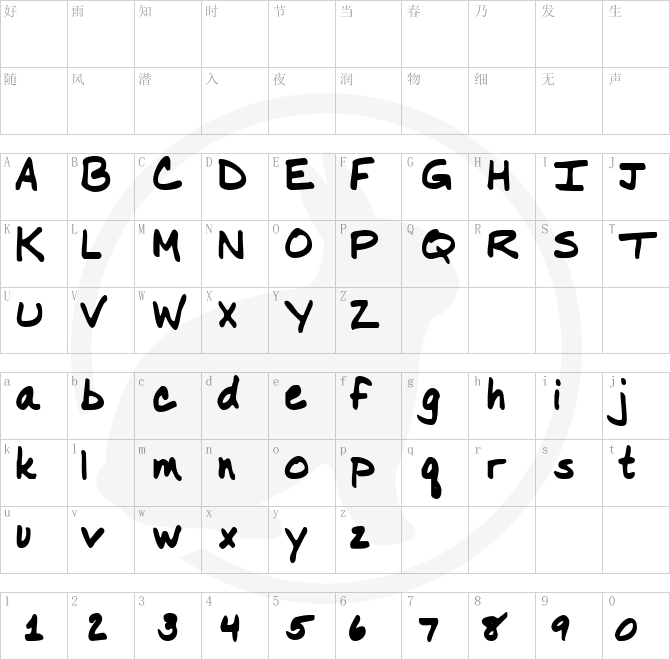
- Font Name:Nancy YOFF
NancyYOFF.ttf is a very beautiful artistic font, NancyYOFF.ttf is widely used in the design and printing of various books and pictures,NancyYOFF.ttf has a strong visual impact,NancyYOFF.ttf is a commonly used font in newspapers, magazines and books, and is used in posters, e-commerce Poster design, store design, logo design, font design and other fields.NancyYOFF.